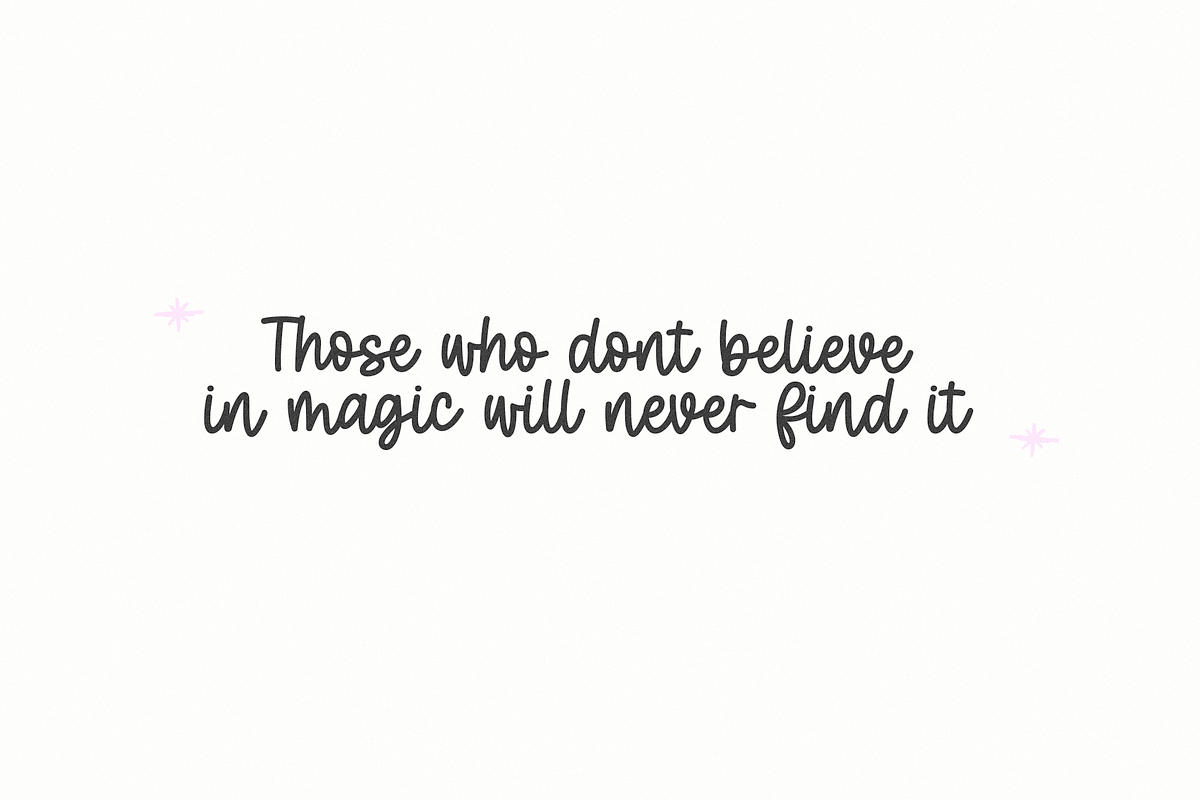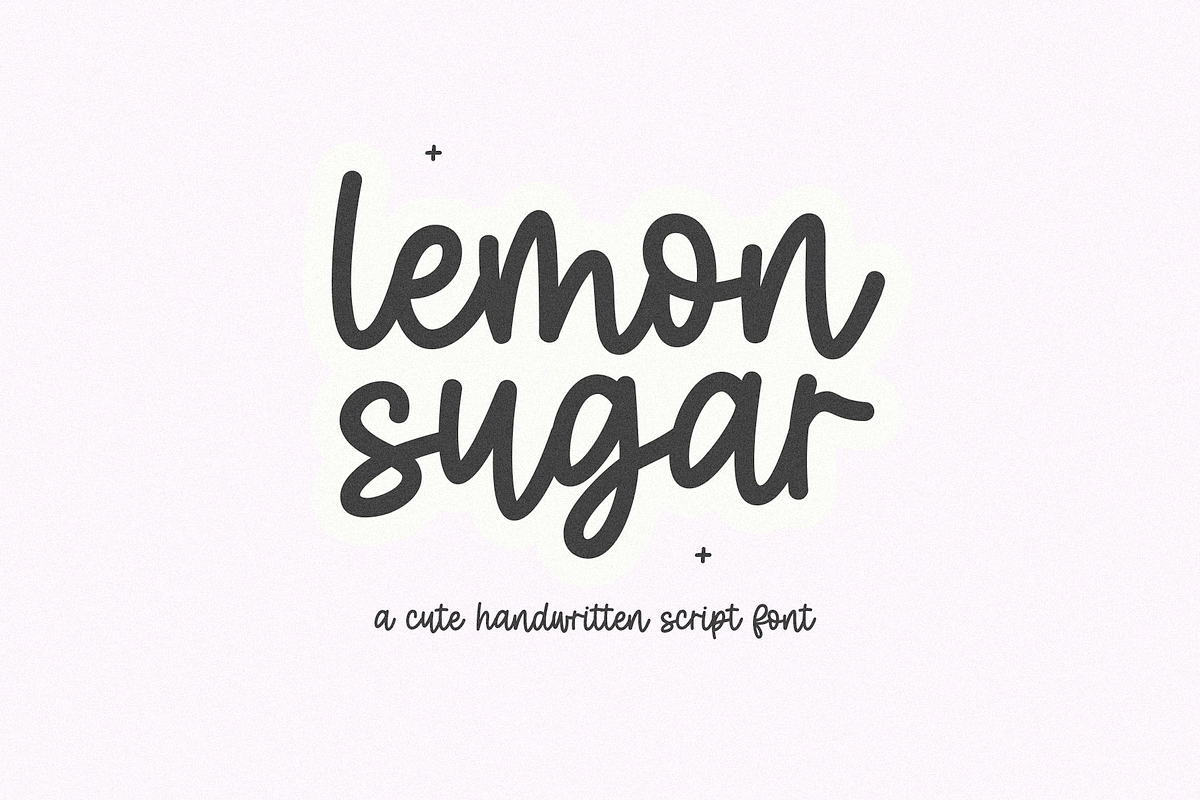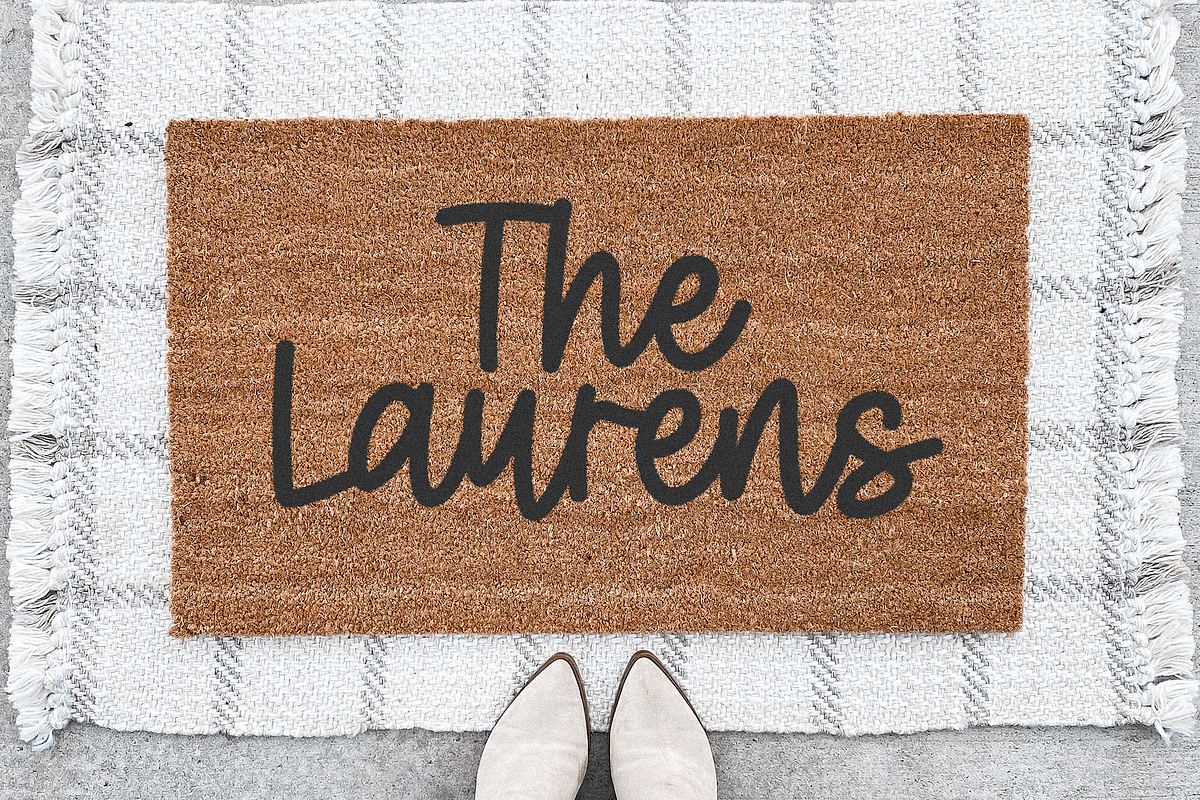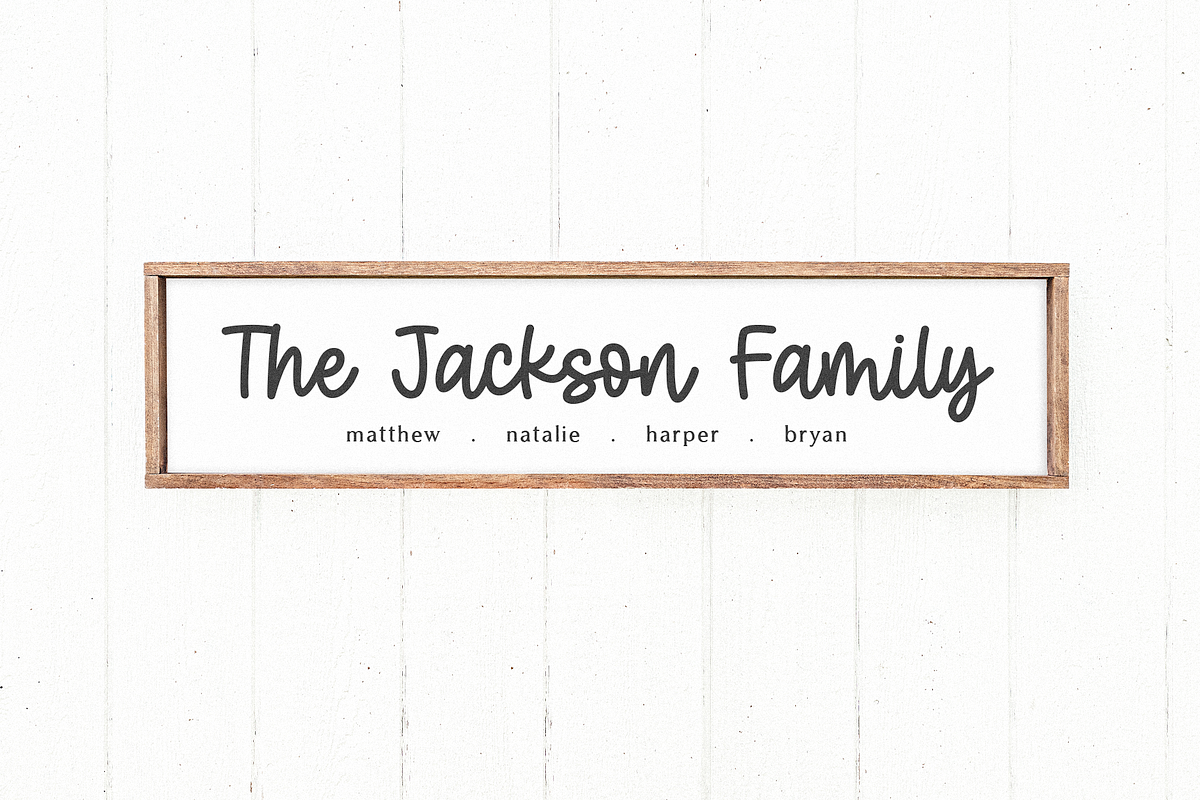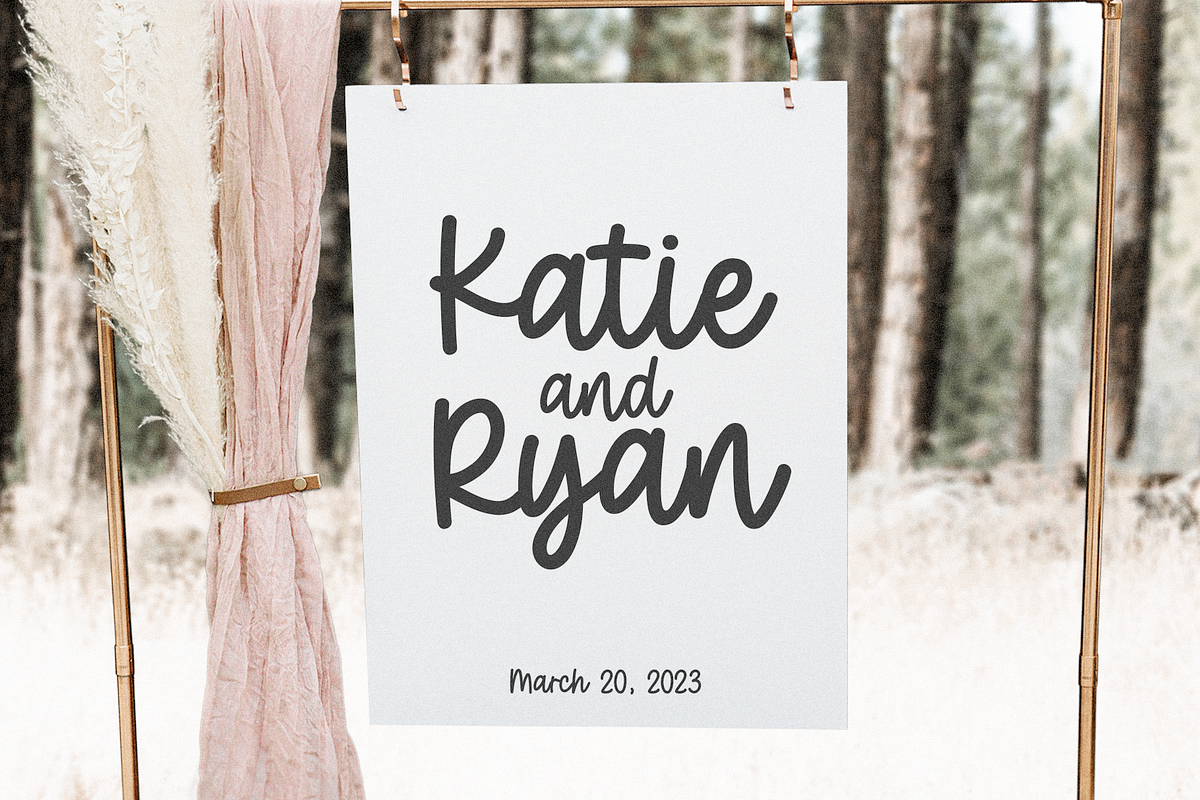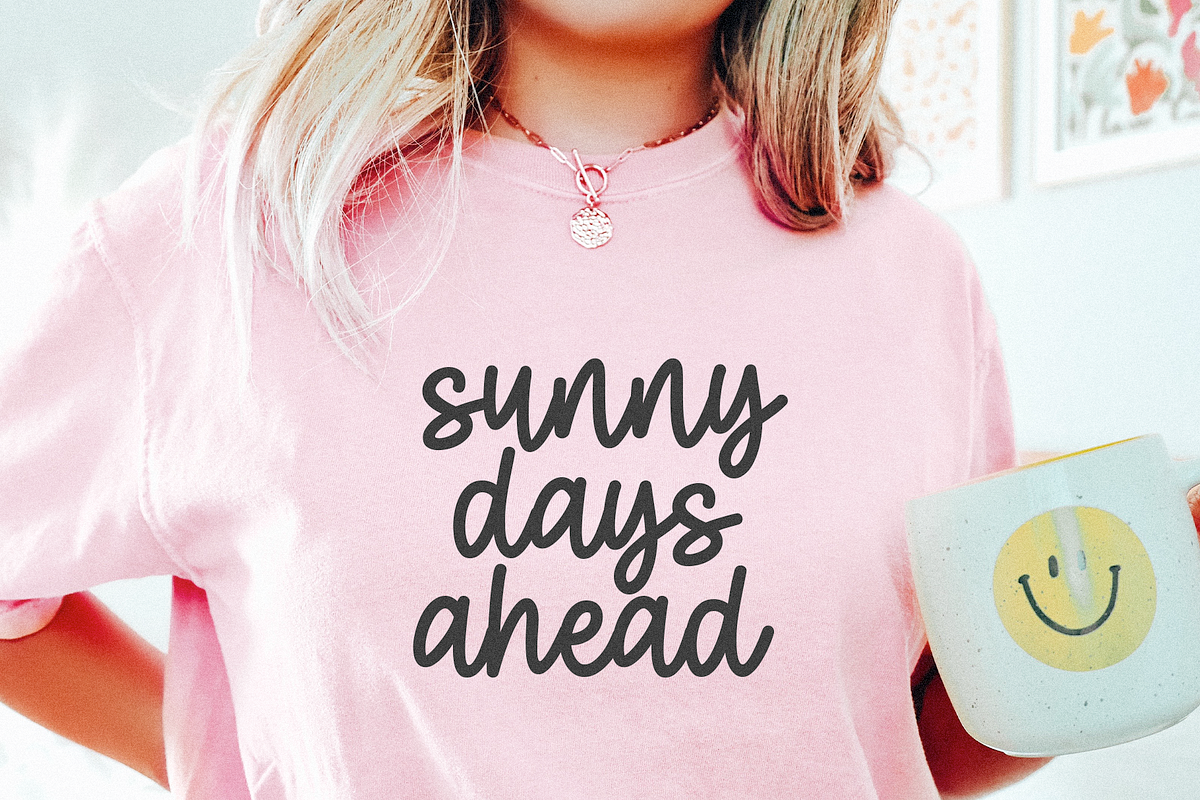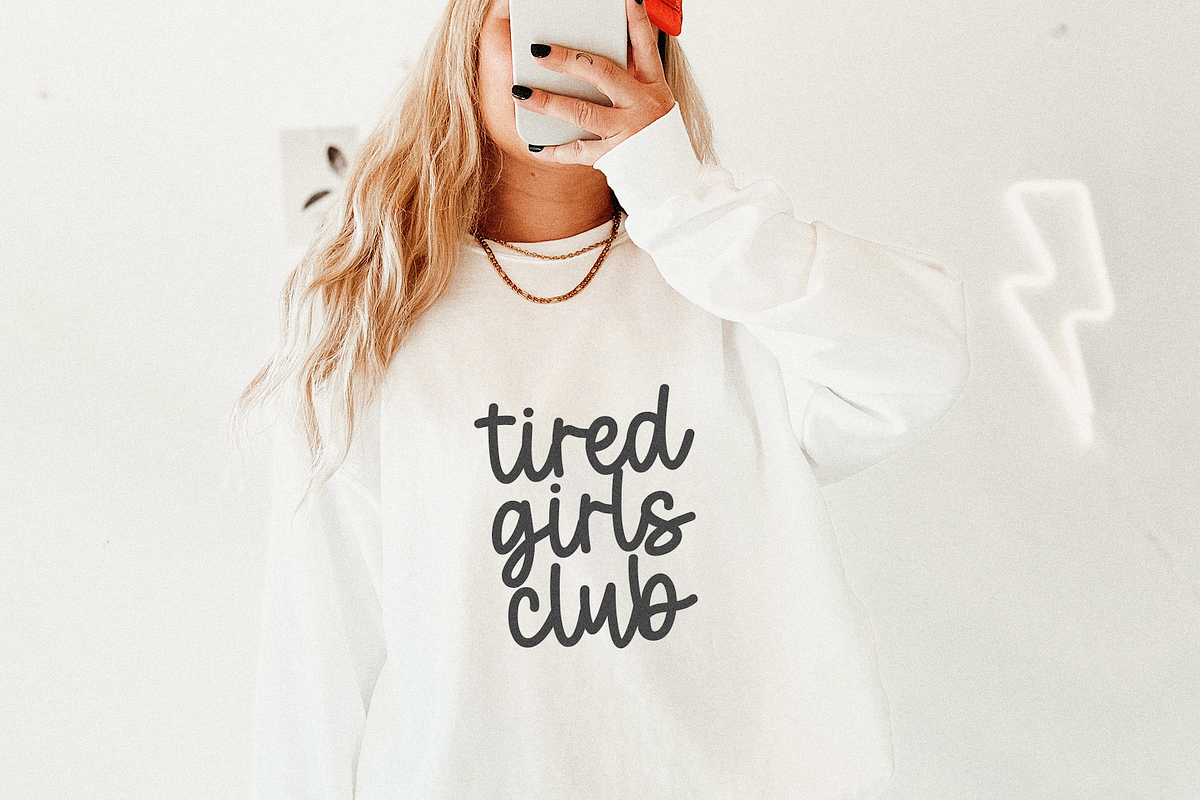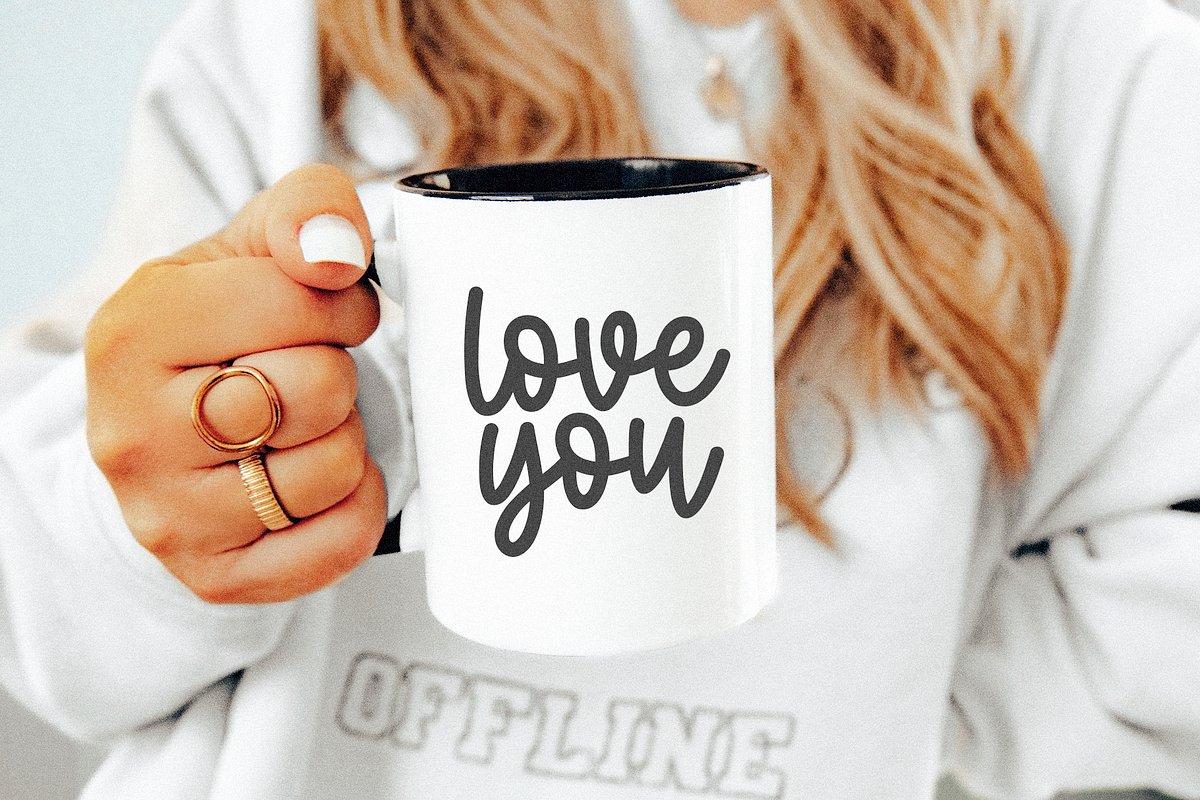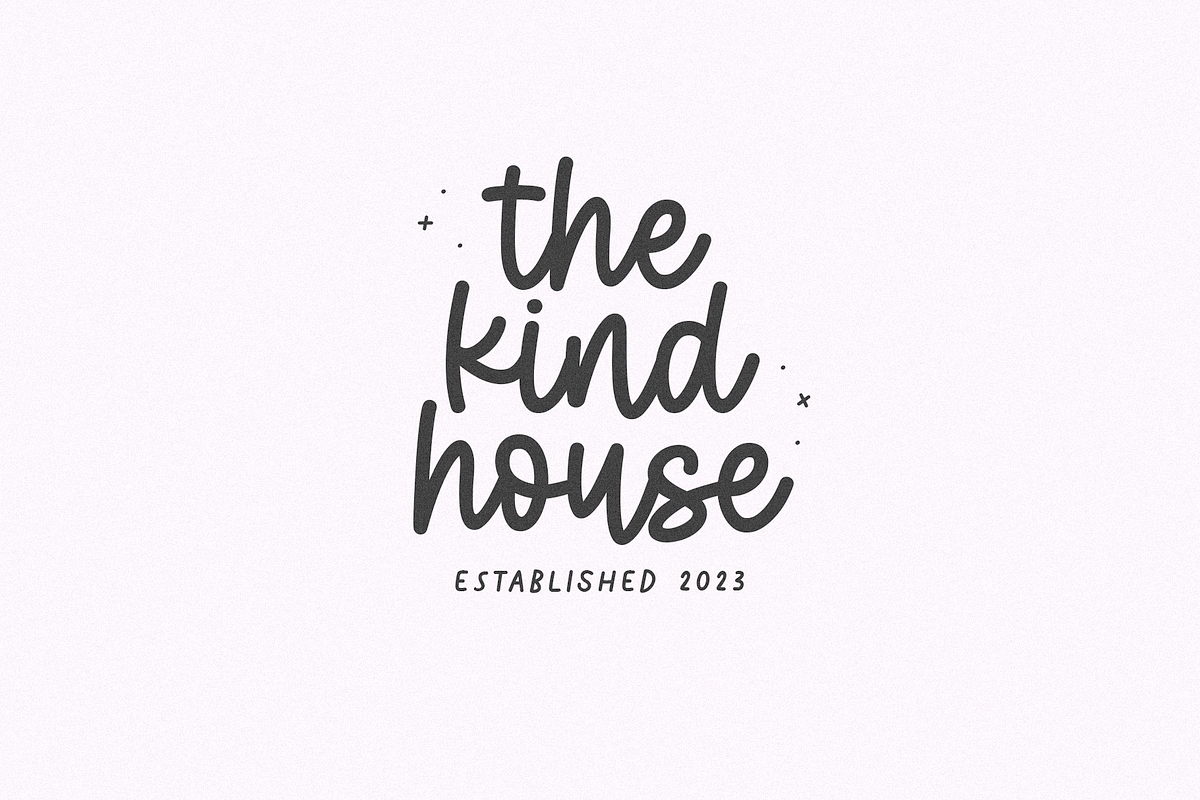
Lemon Sugar | Cute Script Font
Lemon Sugar is a handwritten script font.
This font is perfect for logos, branding, farmhouse designs, cricut projects, svg files, canva, goodnotes, stickers, mugs and more!